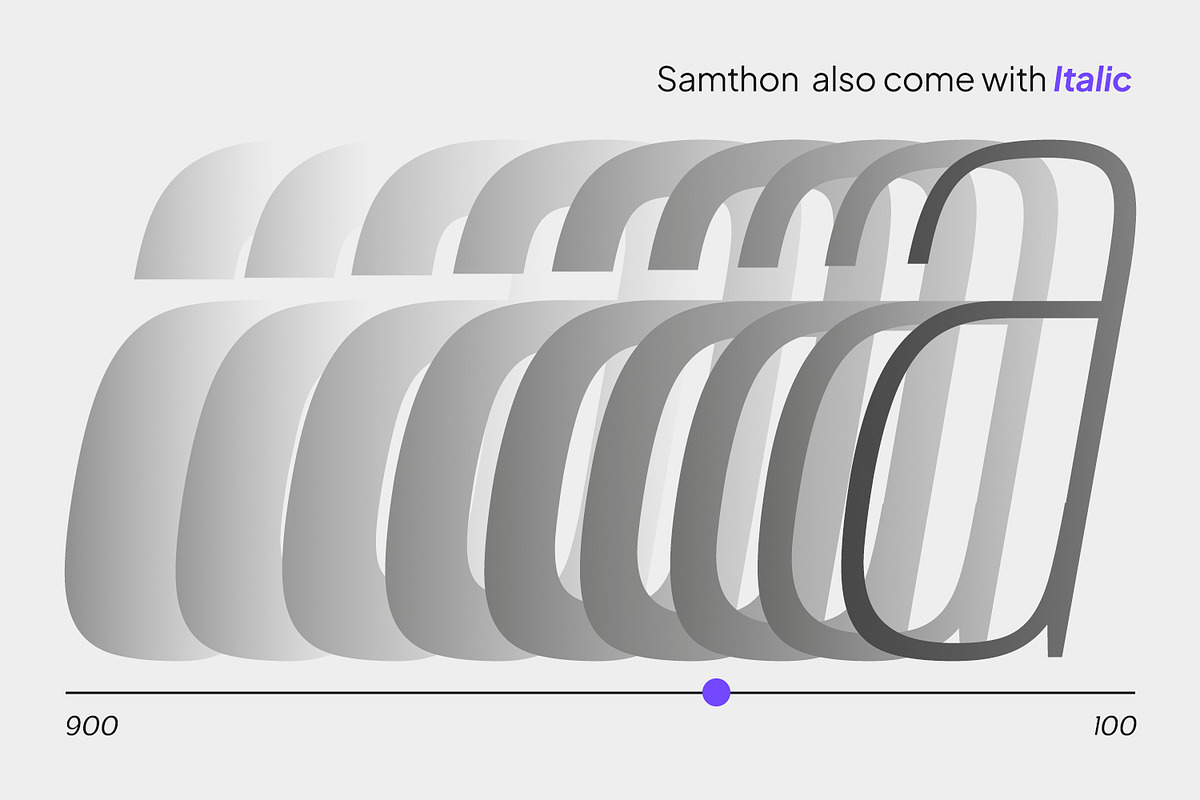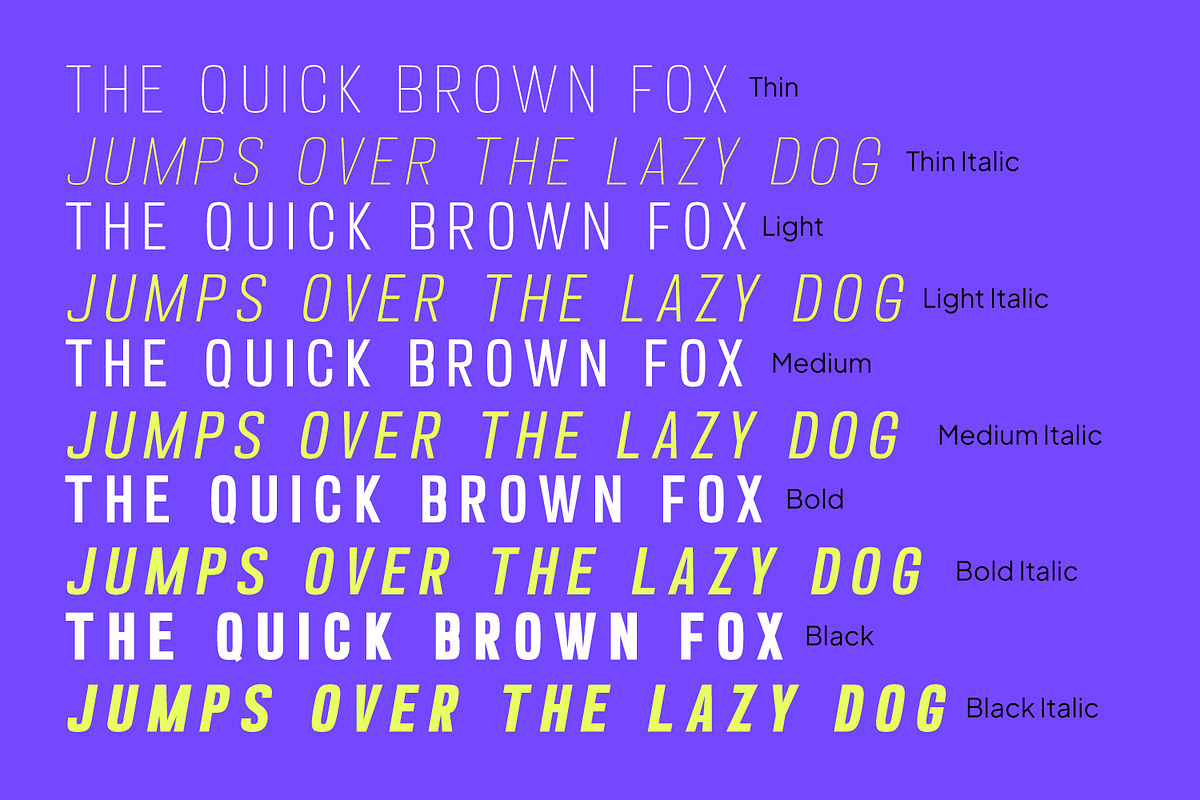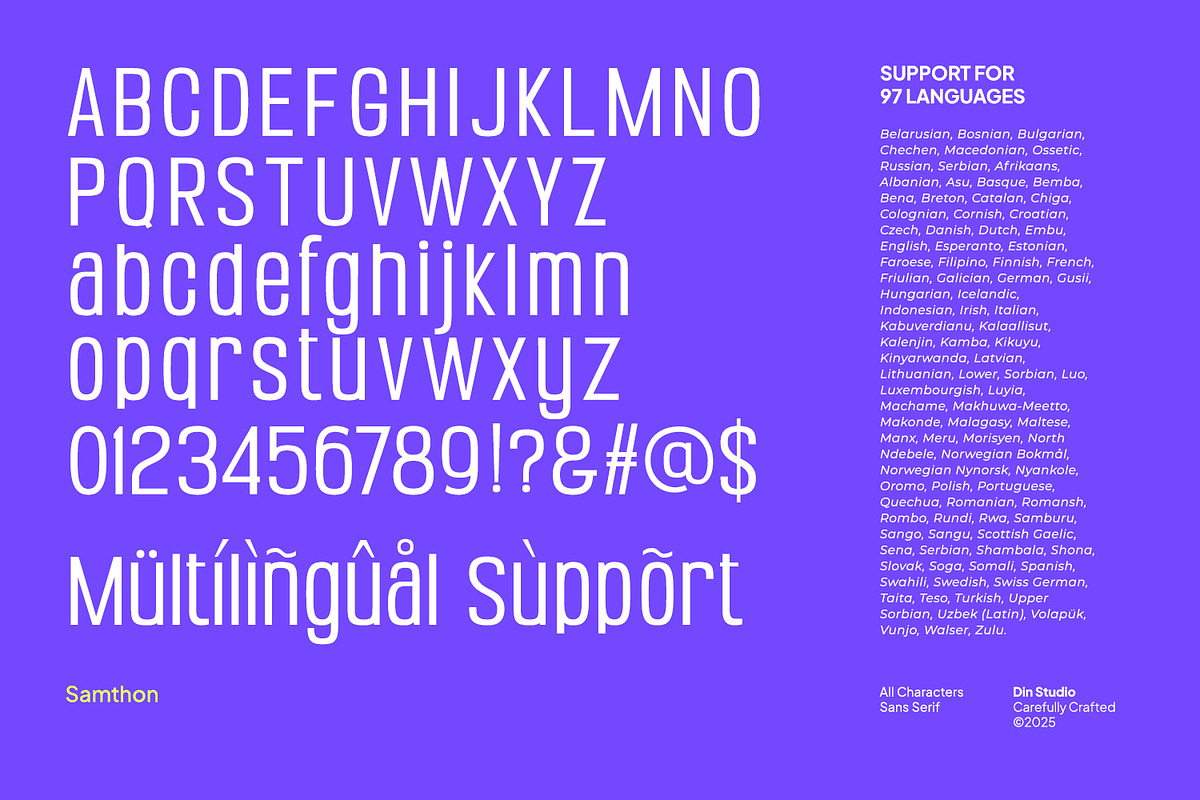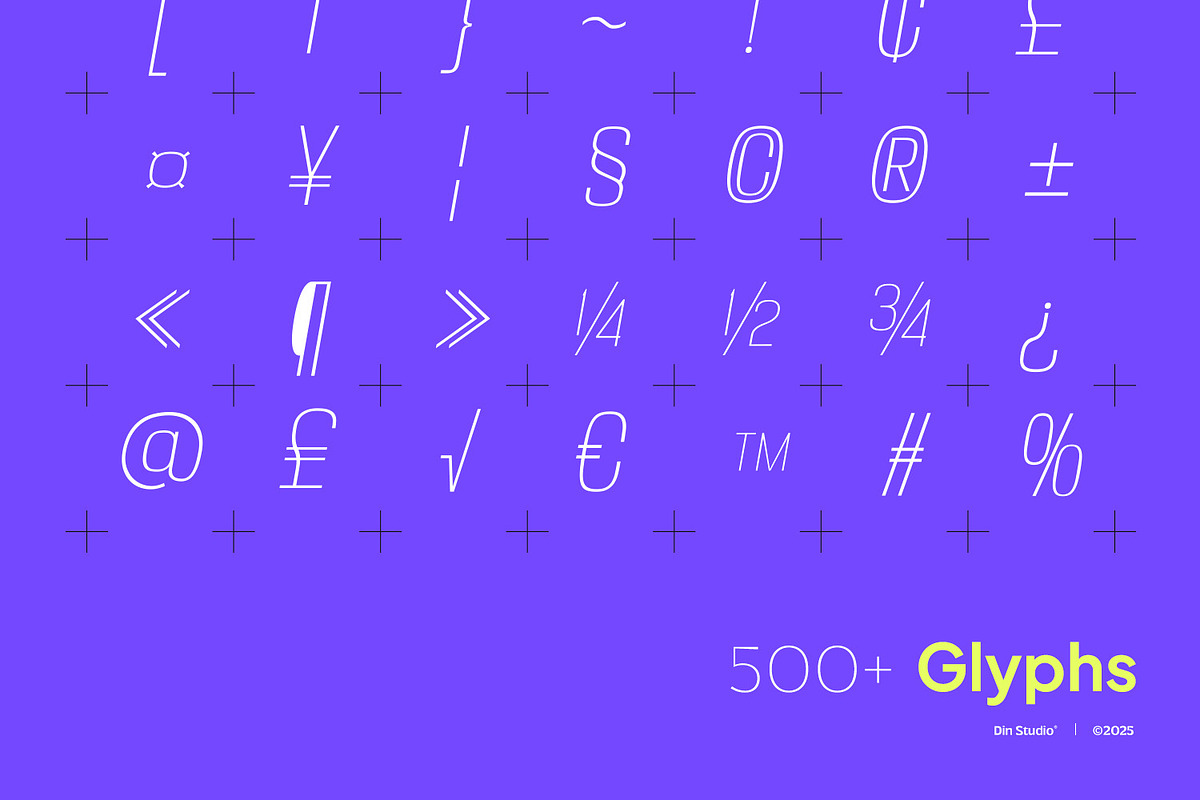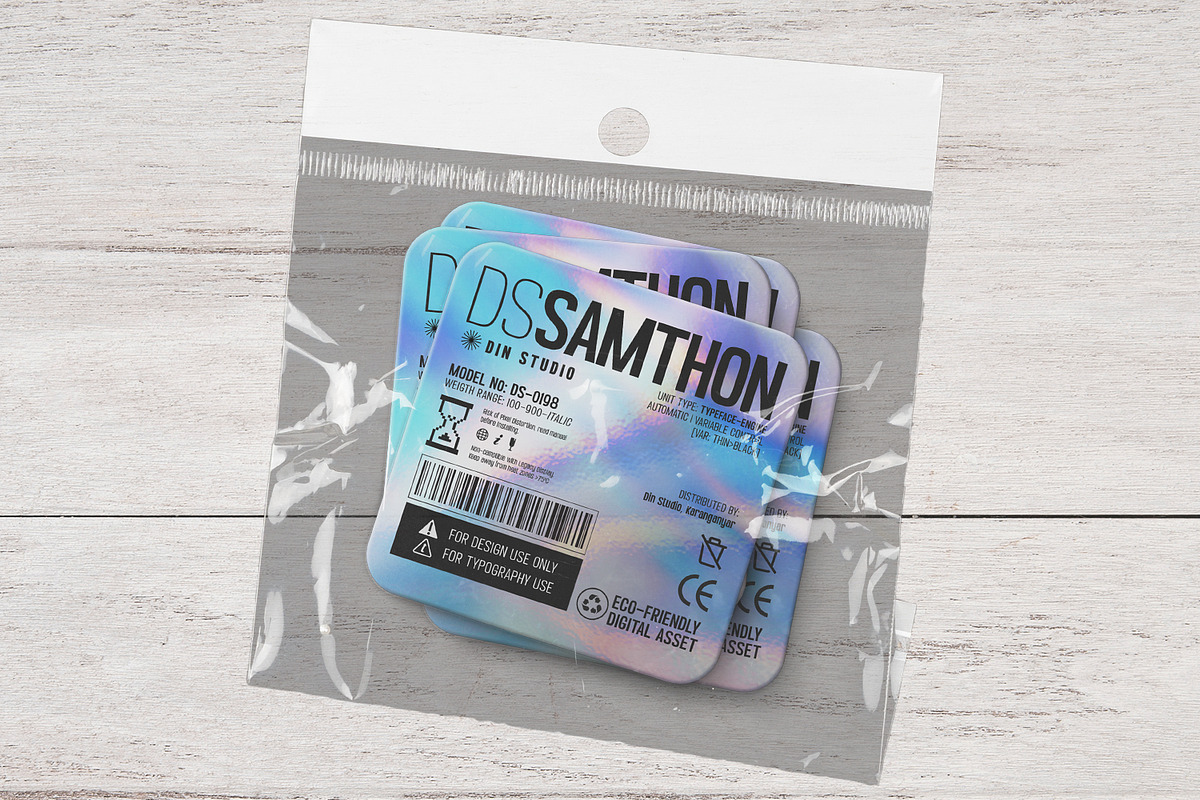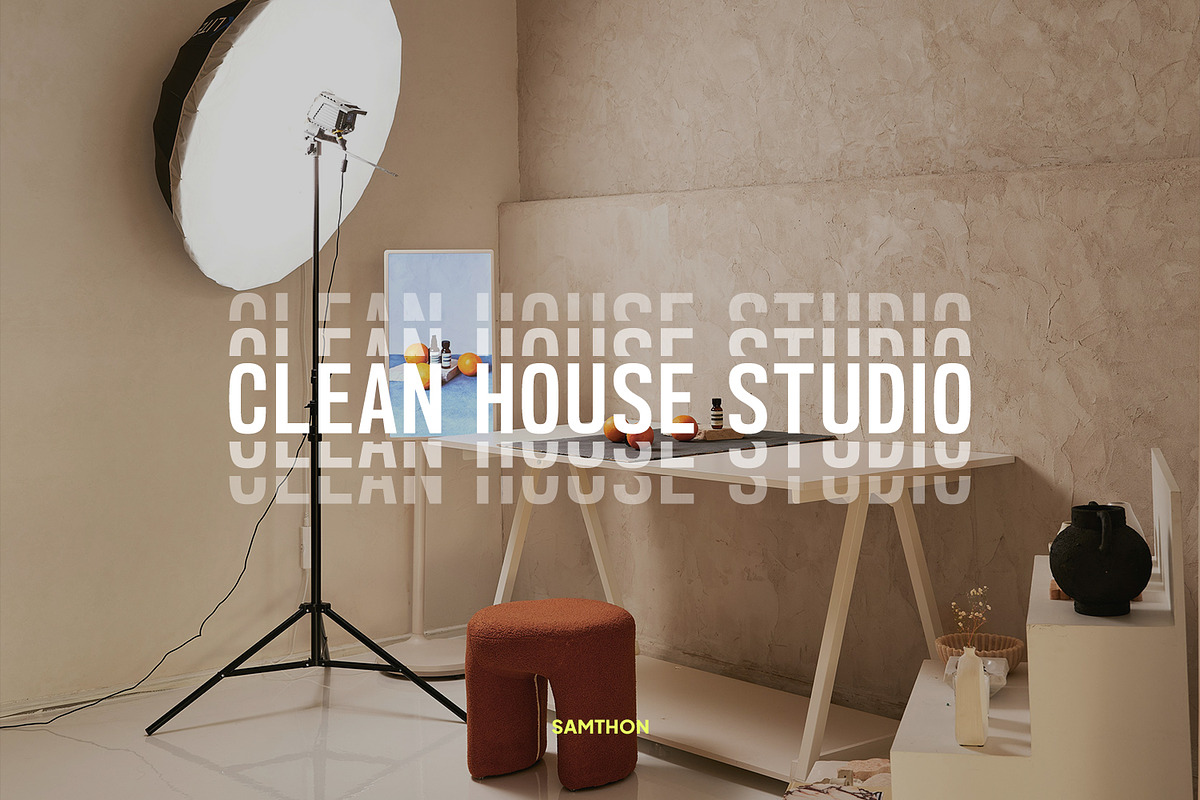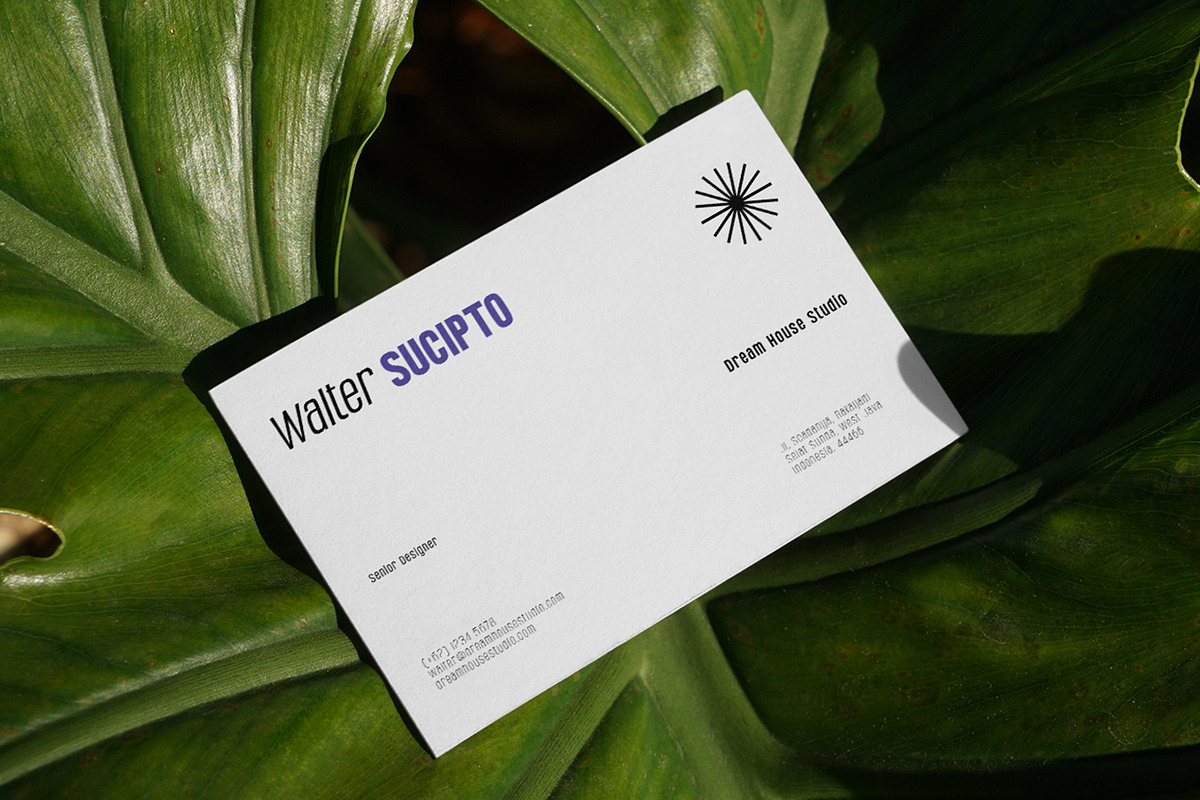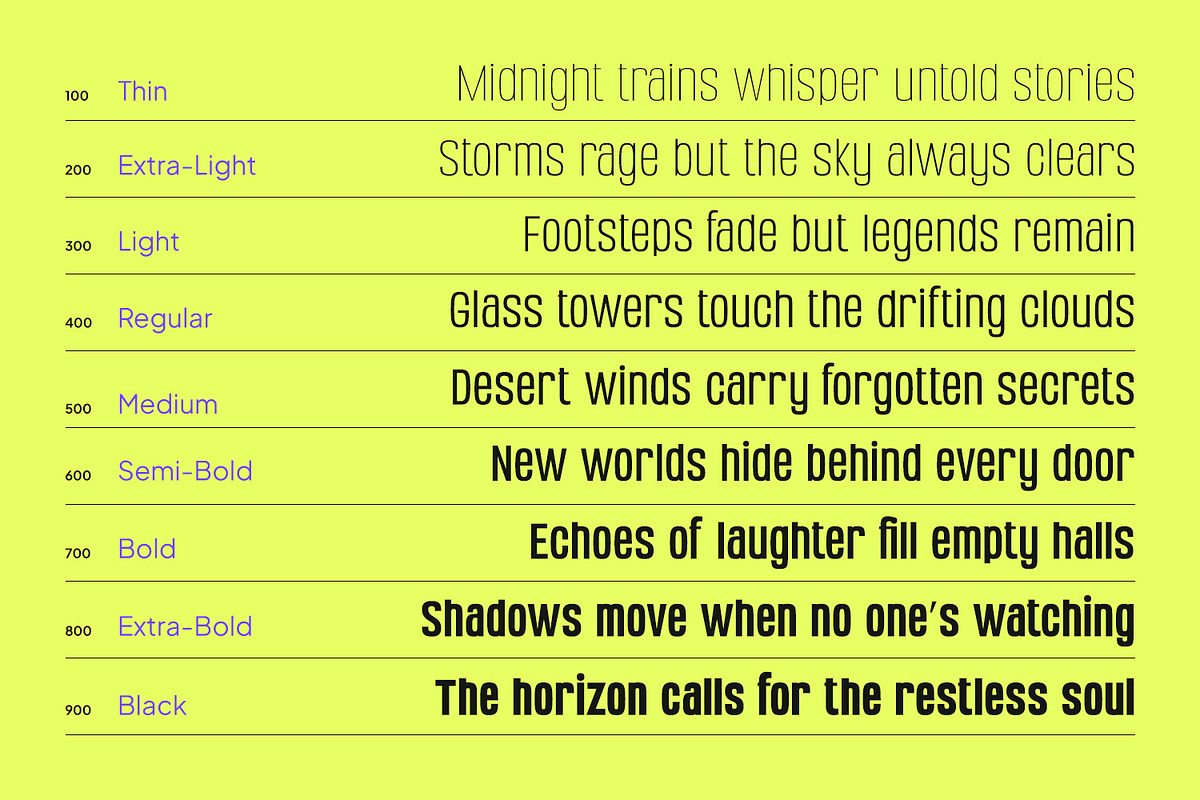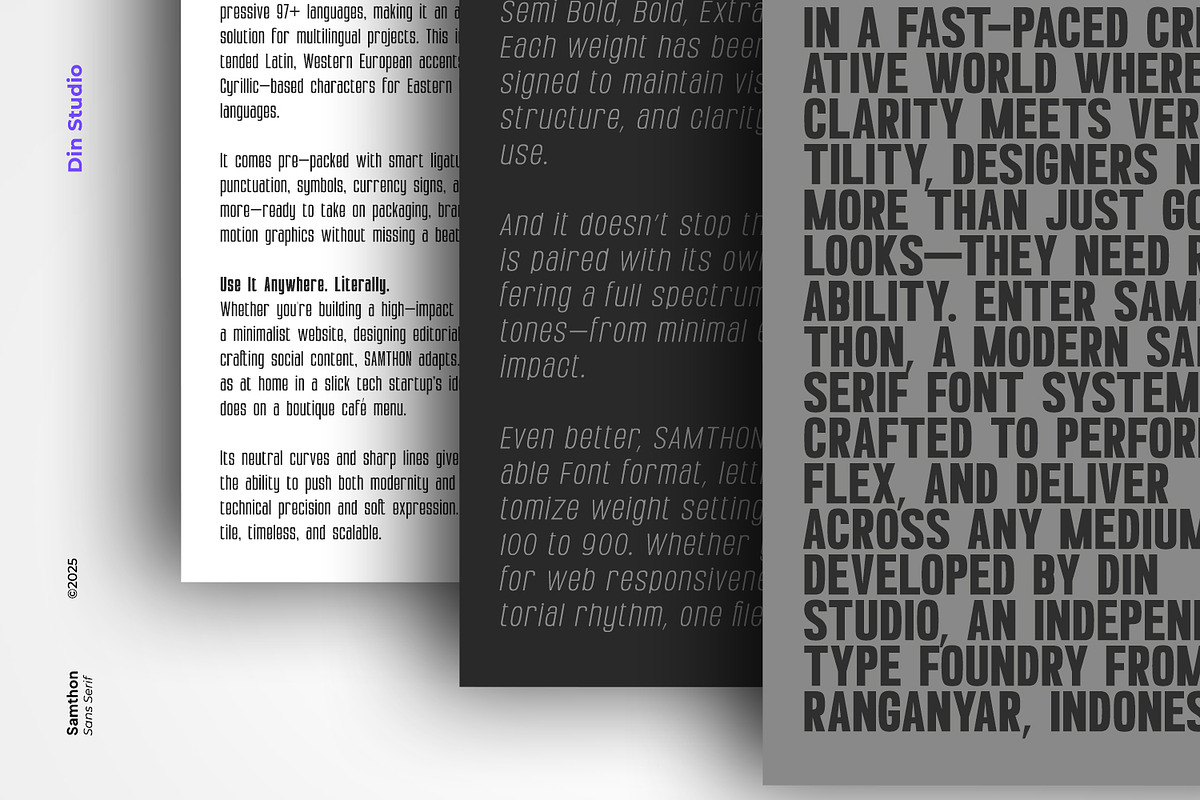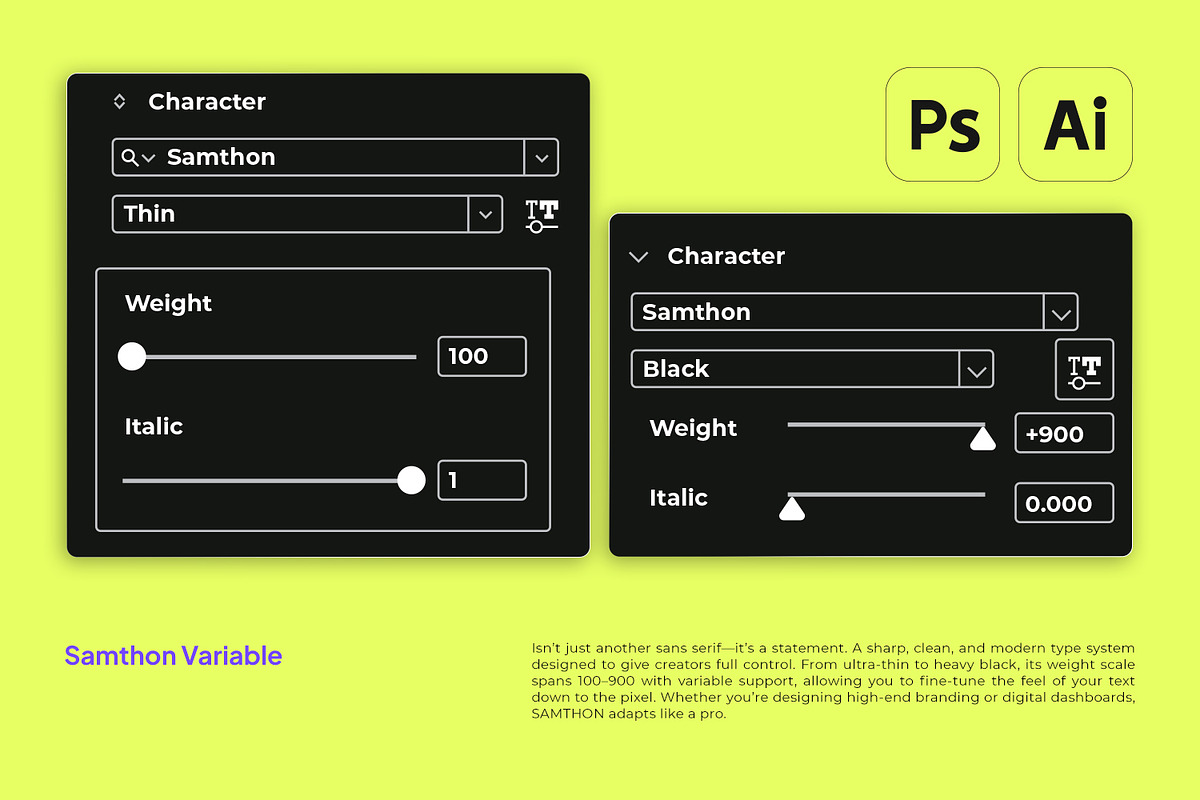
Samthon
Samthon is a modern neo-grotesque sans serif font family with tall characters, clean letterforms, horizontal terminals, and tight apertures that give it a confident, structured feel. With 9 precise weights, italics, and full variable font support for weight and slant, Samthon is built to greatly impact your design. In addition, enjoy the features here.
Samthon fits in bold branding, packaging, posters, headlines, editorial designs, and many more designs. Find out more ways to use this font by taking a look at the font preview.